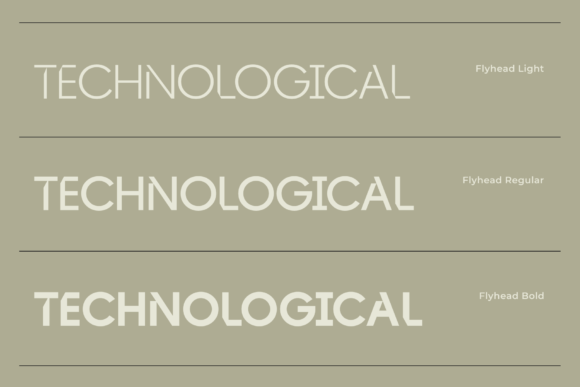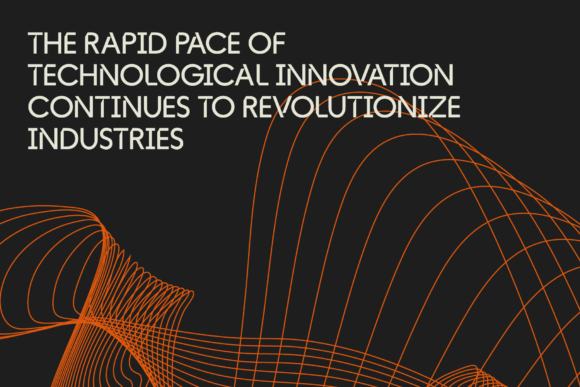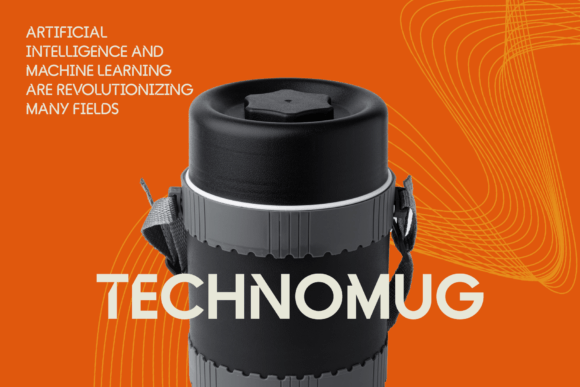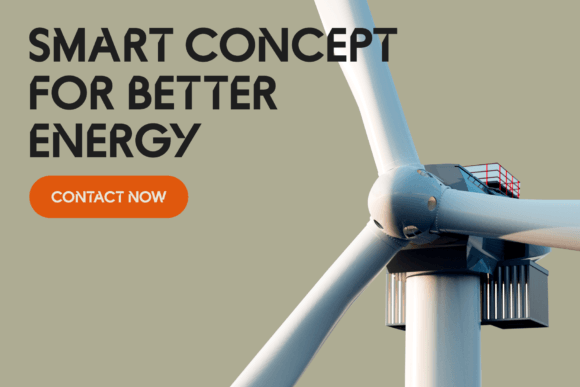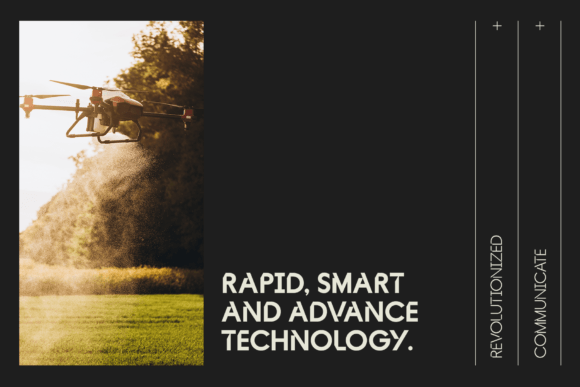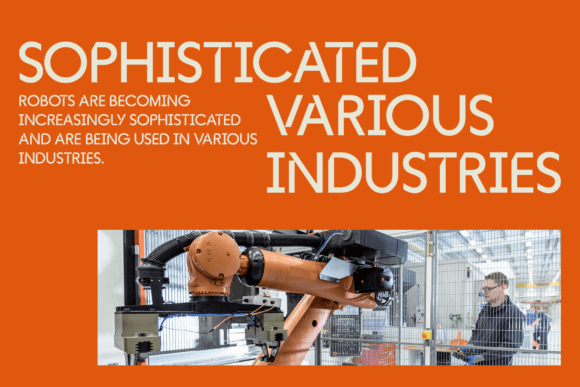
Introducing Flyhead: The Ultimate Font for Modern and Innovative Designs
In the world of design, typography plays a crucial role in conveying messages, expressing ideas, and creating a lasting impression. With the vast array of fonts available, it can be challenging to find the perfect one that embodies the spirit of innovation and progress. Look no further than Flyhead, a geometric typeface designed with precision, featuring clean cuts and highly legible glyphs.
The Art of Precision: Clean Cuts and Legible Glyphs
Flyhead’s design is rooted in precision, with clean cuts and carefully crafted glyphs that ensure excellent readability. The font’s geometric structure provides a sense of stability and modernity, making it perfect for designs that require a professional and sleek look. The highly legible glyphs allow your message to shine through with clarity, ensuring that your audience can quickly and easily understand the information being presented.
The Spirit of Innovation and Progress
Flyhead is more than just a font – it’s a statement. It embodies the spirit of innovation and progress, making it the ideal choice for industries that are pushing the boundaries of what’s possible. From technology and agriculture to energy and medicine, Flyhead’s clean lines, precise cuts, and modern aesthetic perfectly suit the innovative and forward-thinking nature of these industries.
Perfect for a Wide Range of Industries
Flyhead’s versatility makes it suitable for a wide range of applications, including:
- Technology: Use Flyhead to create a website for a technology startup, a brochure for a software company, or a presentation for a tech conference. Its modern and sleek design will help you establish a strong brand identity.
- Agriculture: Flyhead’s clean and precise design makes it perfect for creating marketing materials for agricultural companies, such as brochures, flyers, or packaging labels.
- Energy: Whether you’re designing a website for a renewable energy company or creating a report for an energy industry conference, Flyhead’s modern aesthetic will help you convey a sense of innovation and progress.
- Medicine: Flyhead’s legible glyphs and clean design make it an excellent choice for medical publications, such as journals, magazines, or patient education materials.
Flyhead’s versatility extends beyond industries – it’s also perfect for a wide range of design applications, including:
- Headlines and Titles: Use Flyhead to create attention-grabbing headlines and titles that will draw your audience in.
- Body Text: Flyhead’s legible glyphs make it perfect for body text, ensuring that your readers can easily follow your message.
- Web Design: Flyhead is optimized for web design, with a range of weights and styles to help you create a responsive and engaging website.
- Print Design: Flyhead’s precision design makes it perfect for print materials, such as brochures, flyers, and posters.
Take Your Designs to the Next Level
With Flyhead, you can elevate your designs and take your message to the next level. Its precision design, clean cuts, and highly legible glyphs make it the ultimate font for modern and innovative designs. Whether you’re a designer, craftsperson, or simply someone who appreciates great typography, Flyhead is the perfect choice for anyone looking to create a lasting impression.
| Font Name | Flyhead Font |
| Author | Headfonts |
In conclusion, Flyhead is a game-changing font that’s perfect for designers, craftspersons, and anyone looking to create modern and innovative designs. Its precision design, clean cuts, and highly legible glyphs make it the ultimate font for a wide range of industries and design applications. With Flyhead, you can take your designs to the next level and create a lasting impression on your audience.